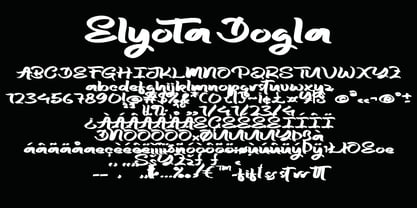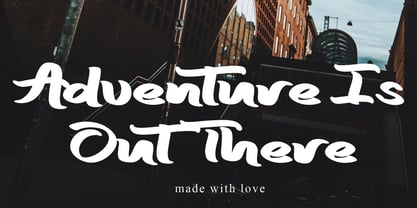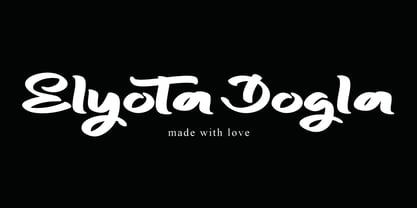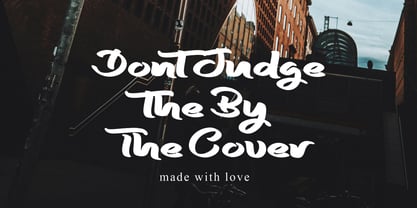
Elyota Dogla
The Elyota Dogla Font Family was designed by Dhoni Trihatmoko and published by Ayska. Elyota Dogla contains 1 styles.
Experience the stunning blend of contemporary style and classic luxury with Elyota Dogla—a splendid creation embodying the grandeur of handwritten typography. Painstakingly fashioned with the utmost precision, Elyota Dogla resonates with refined elegance, infusing a unique personal touch into your every digital endeavor. Its striking character captivates audiences, enriching your digital diary, personalizing your invitations, and imbuing an emotive quality into your celebratory notes. Immerse yourself in Elyota Dogla's enduring allure and visionary craftsmanship, adding an elegant touch to your photo collections or customized decorations. Let it turn ordinary visuals into captivating masterpieces, weaving a magical charm into your digital creations. Welcome the mystery of Elyota Dogla, a beacon guiding you towards crafting captivating masterworks. Immerse in the creative depths of Elyota Dogla to manifest your artistic energy into refined pieces of digital artistry.